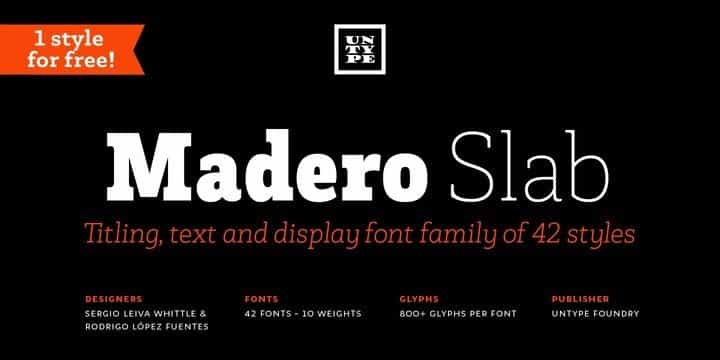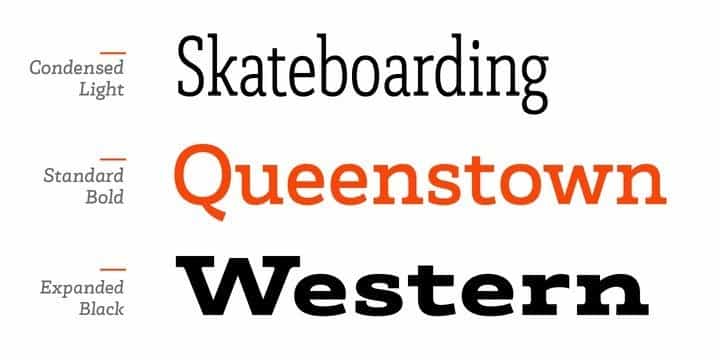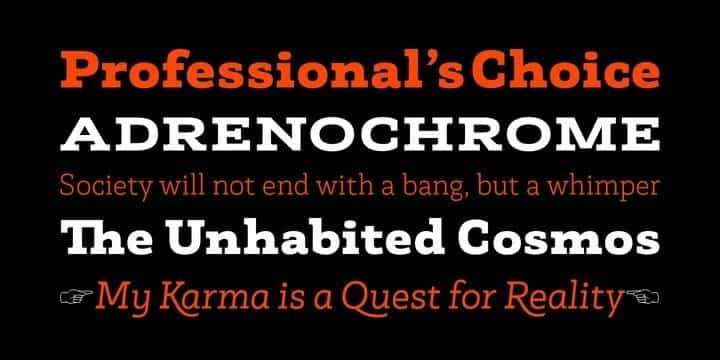
Madero is a brand new slab serif typeface, with Solid fonts. It is based upon an extremely compact font by combining a variety styles. Suitable for Logo, greeting cards, quotes, posters, branding, name card, stationary, design title, blog header, art quote, typography